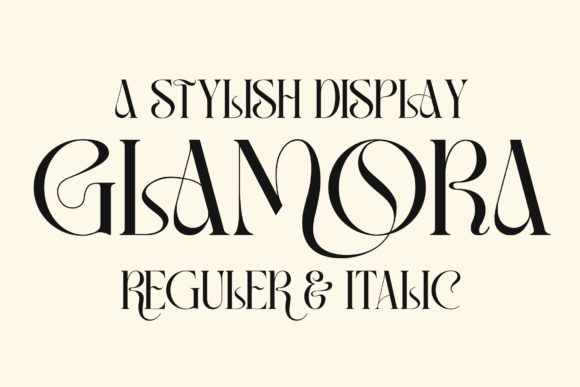
Introducing Glamora, the epitome of elegance and sophistication in the world of typography. This modern and classic serif font, crafted by the renowned Storytype Studio, is a masterpiece that will add a touch of timeless beauty to your creative projects.
With its unique style and modern look, Glamora stands out as the perfect choice for crafting elegant and luxurious logos that will leave a lasting impression on your audience. Its timeless appeal makes it an ideal selection for book or movie title designs, where its presence will captivate readers and viewers alike.
In the world of fashion, Glamora reigns supreme. Its delicate lines and graceful curves add a touch of sophistication to clothing designs and lettering, while its versatility allows it to blend seamlessly with a wide range of styles. Whether you're creating a fashion magazine or designing a clothing line, Glamora will elevate your creations with its understated elegance.
For those who seek inspiration and beauty in the written word, Glamora is your muse. Its intricate details and flowing lines bring quotes and sayings to life, adding a layer of depth and emotion to your messages. Let Glamora carry your words into the hearts and minds of your readers, leaving them captivated by its allure.